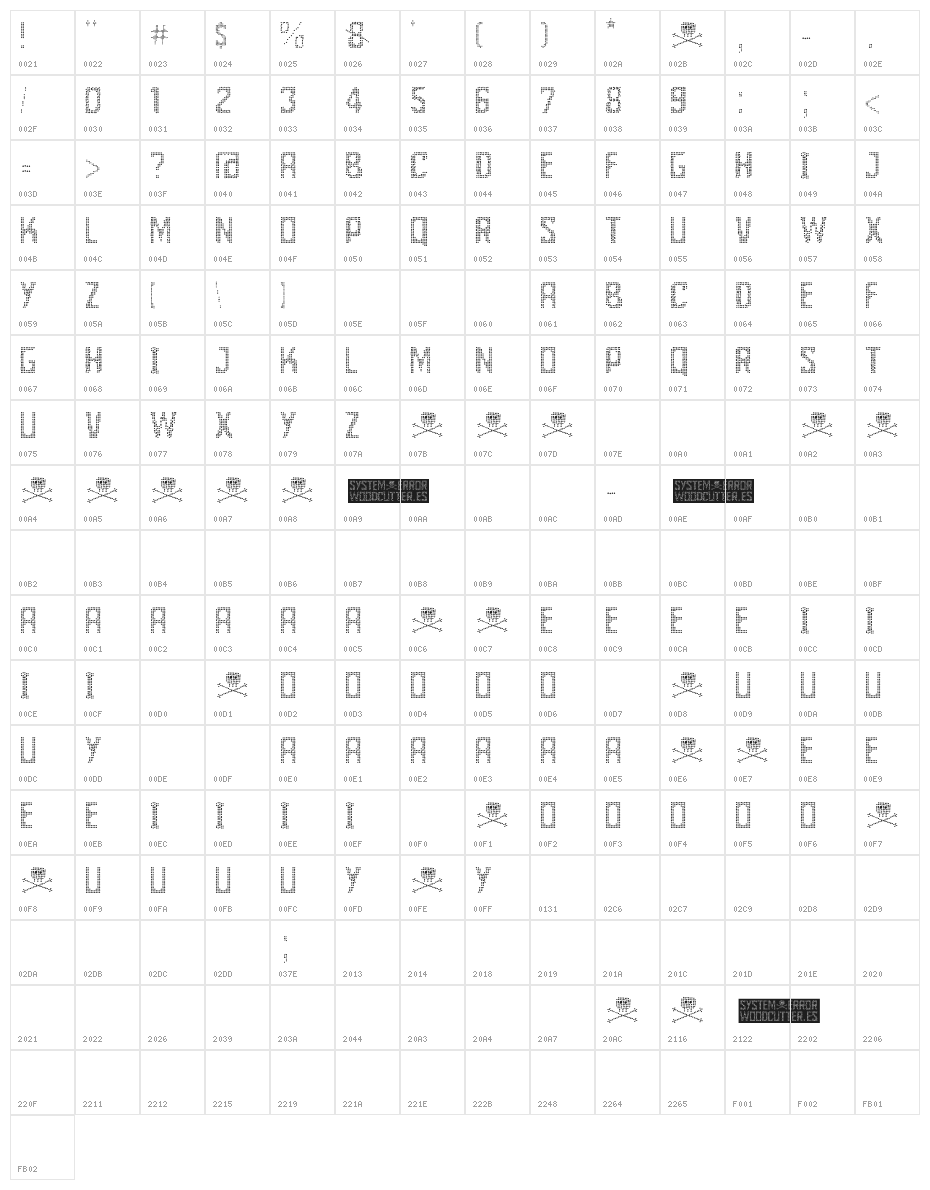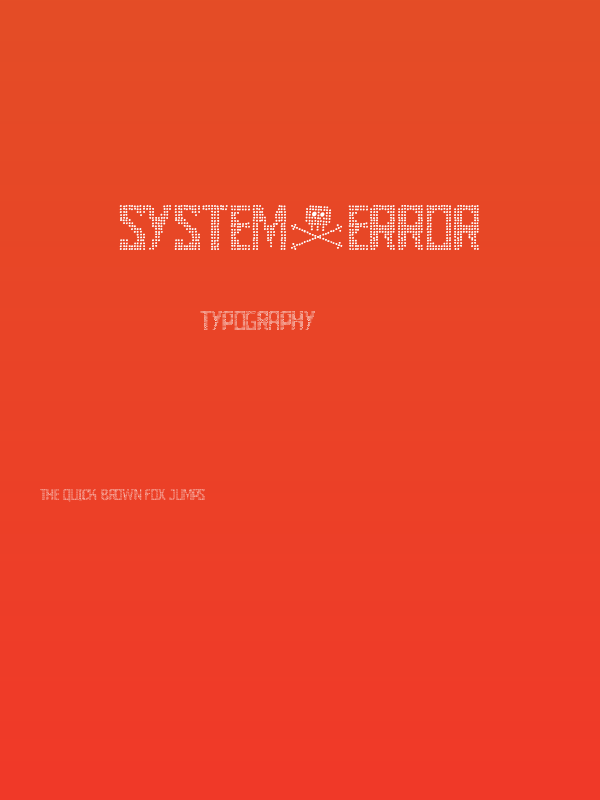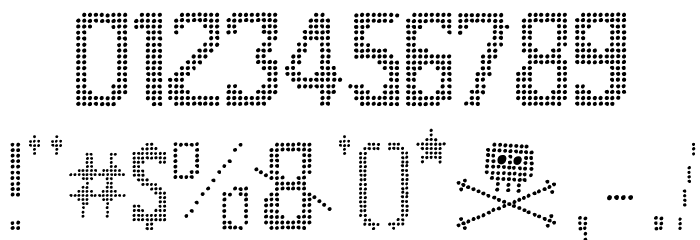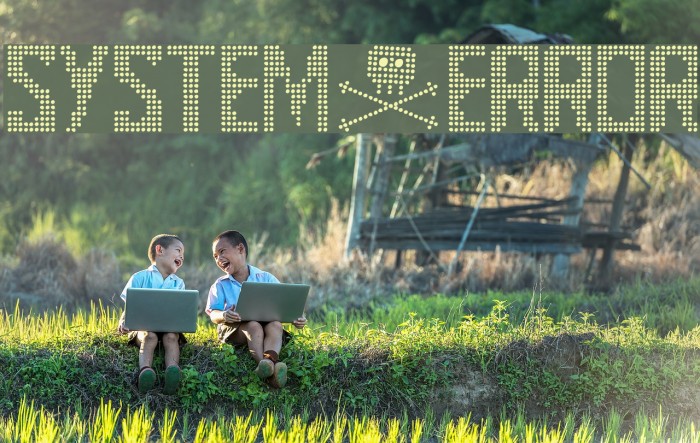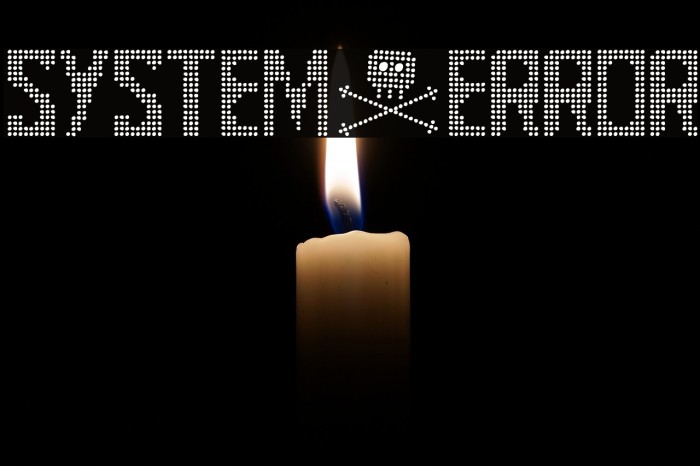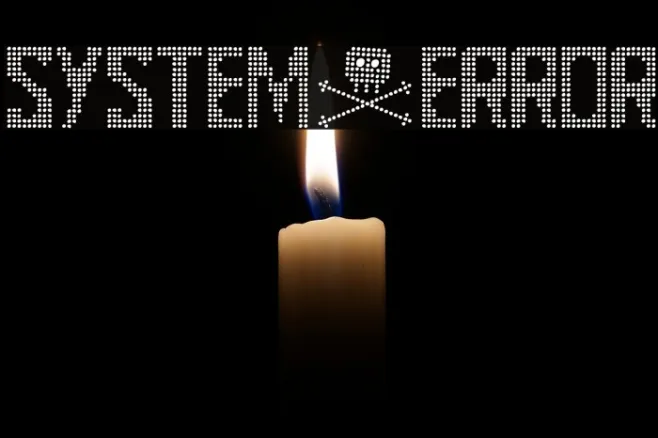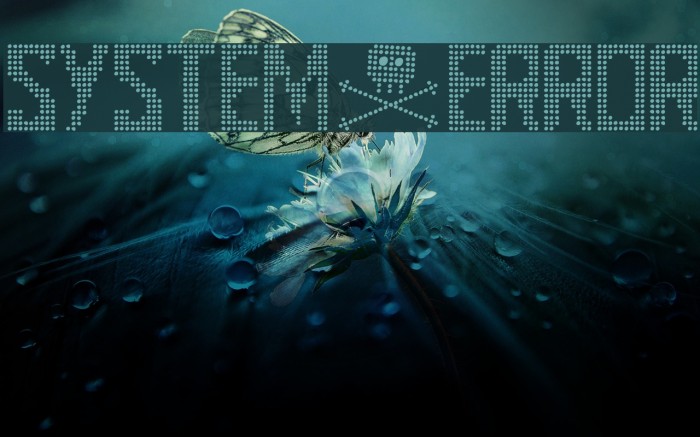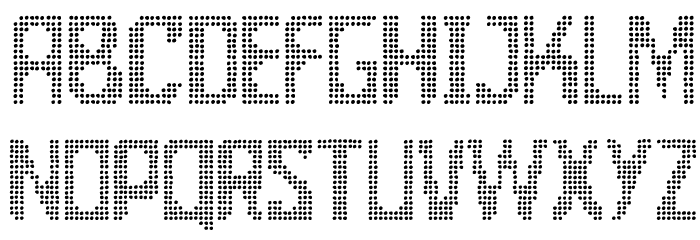
System+error Font
System+error Description
This font is a unique and creative design composed entirely of small dots arranged to form each character. The dotted style gives it a digital, retro feel reminiscent of early computer displays or LED screens. The characters are evenly spaced and maintain a consistent height, providing a uniform appearance across both uppercase and lowercase letters. The numbers and special characters follow the same dotted pattern, ensuring a cohesive look throughout. This font's distinct style makes it stand out, offering a playful yet structured aesthetic.
| Use Case | Logos, Posters, Digital Art |
| Proposed Projects | Ideal for digital art projects, retro-themed designs, tech-related branding, or any creative work that requires a unique, eye-catching typeface. |